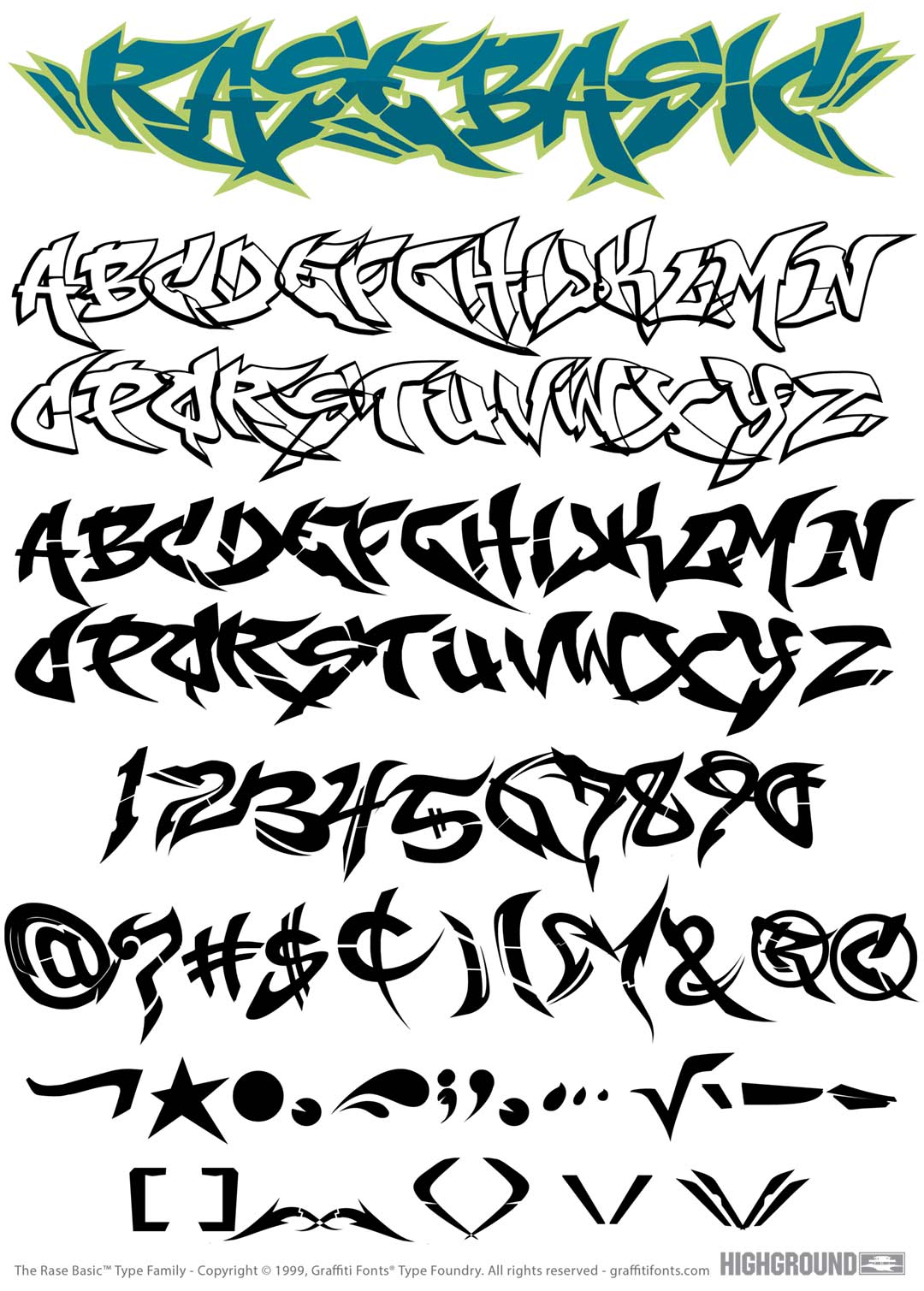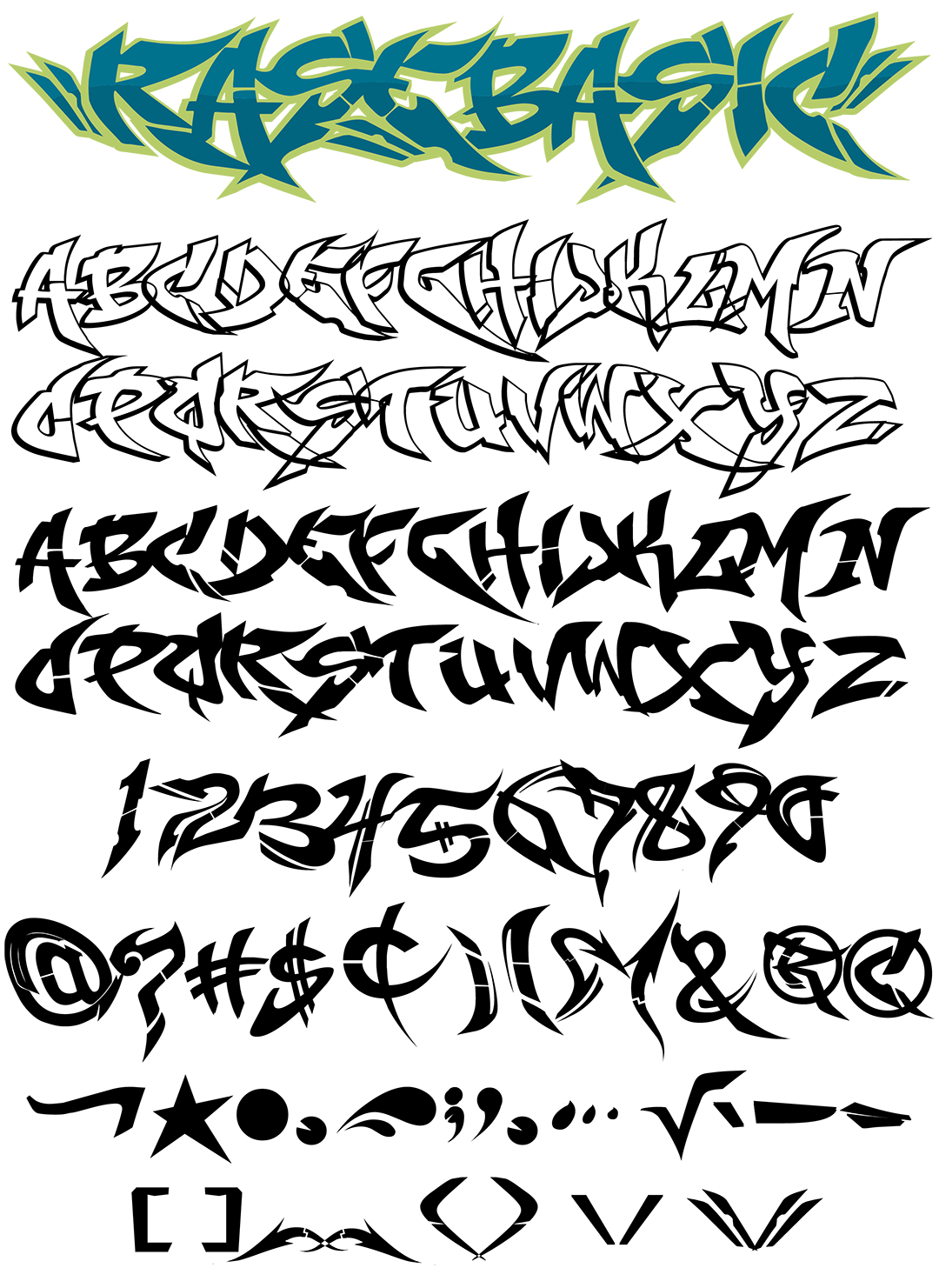
Rase Basic Font
Rase Basic Graffiti Alphabet
Rase Basic Graffiti Font Family
This font features the simpler alphabet from the original Raseone font as well as numbers & other basic characters. We placed the solid fill style on the lowercase letters & a custom outline style on the capitol letters. These two style can be altered to create a unique outline effect. 118 characters in all.